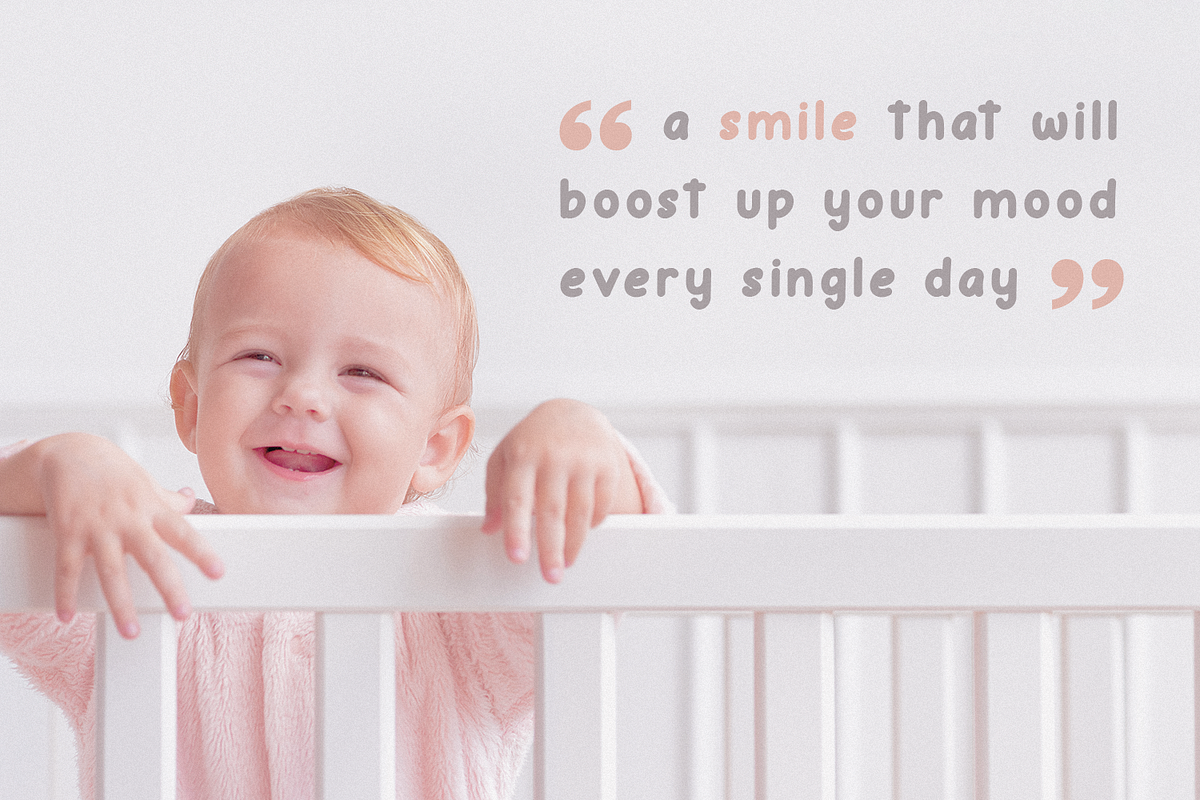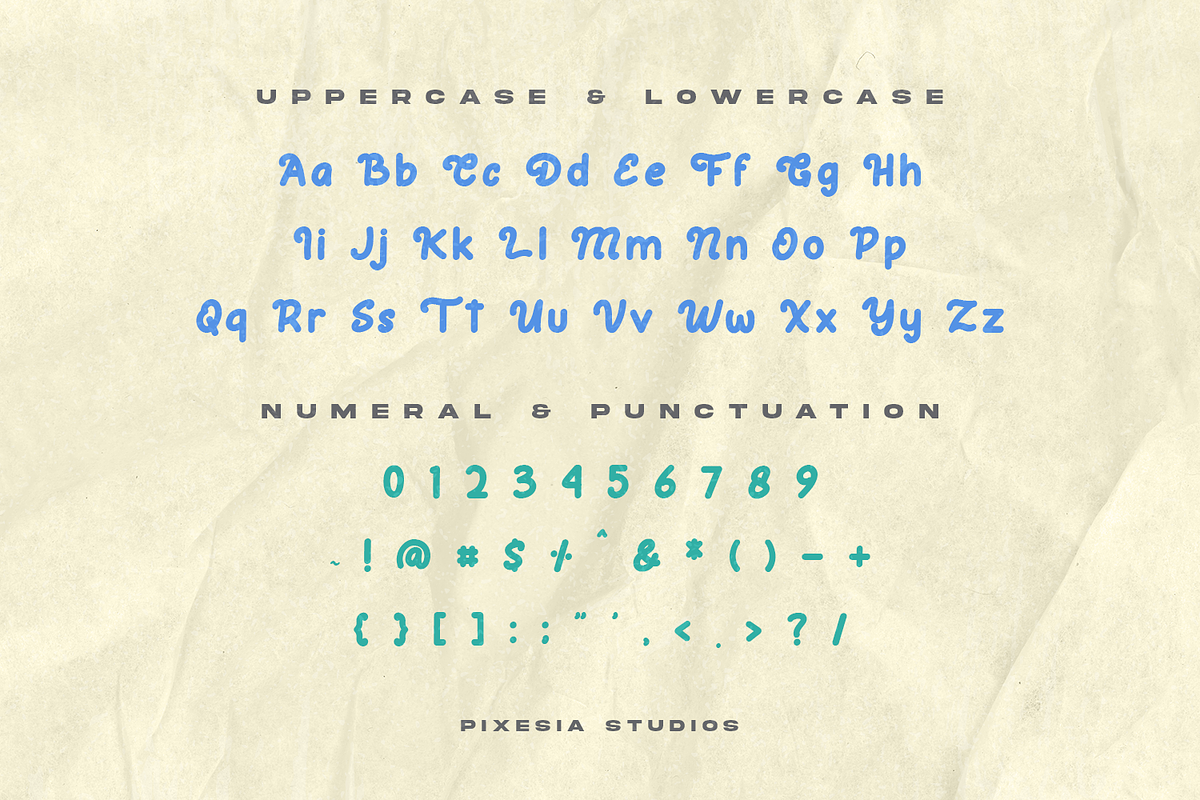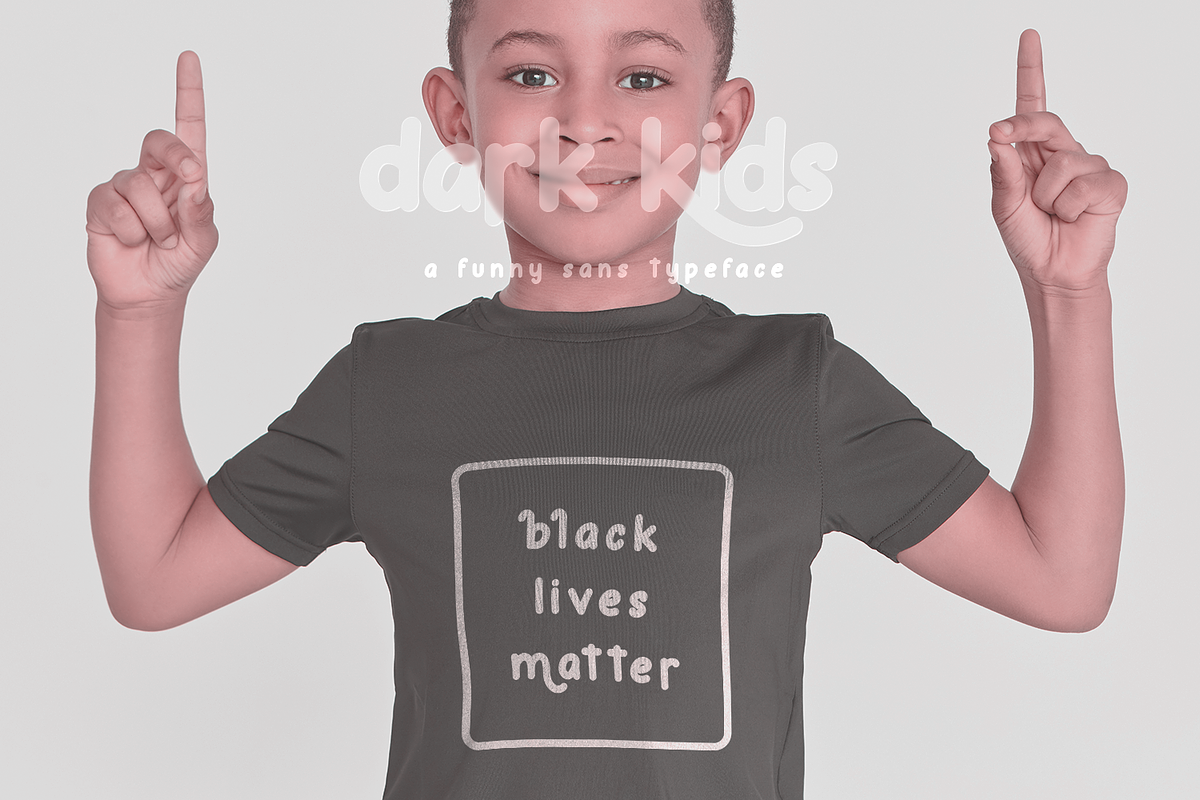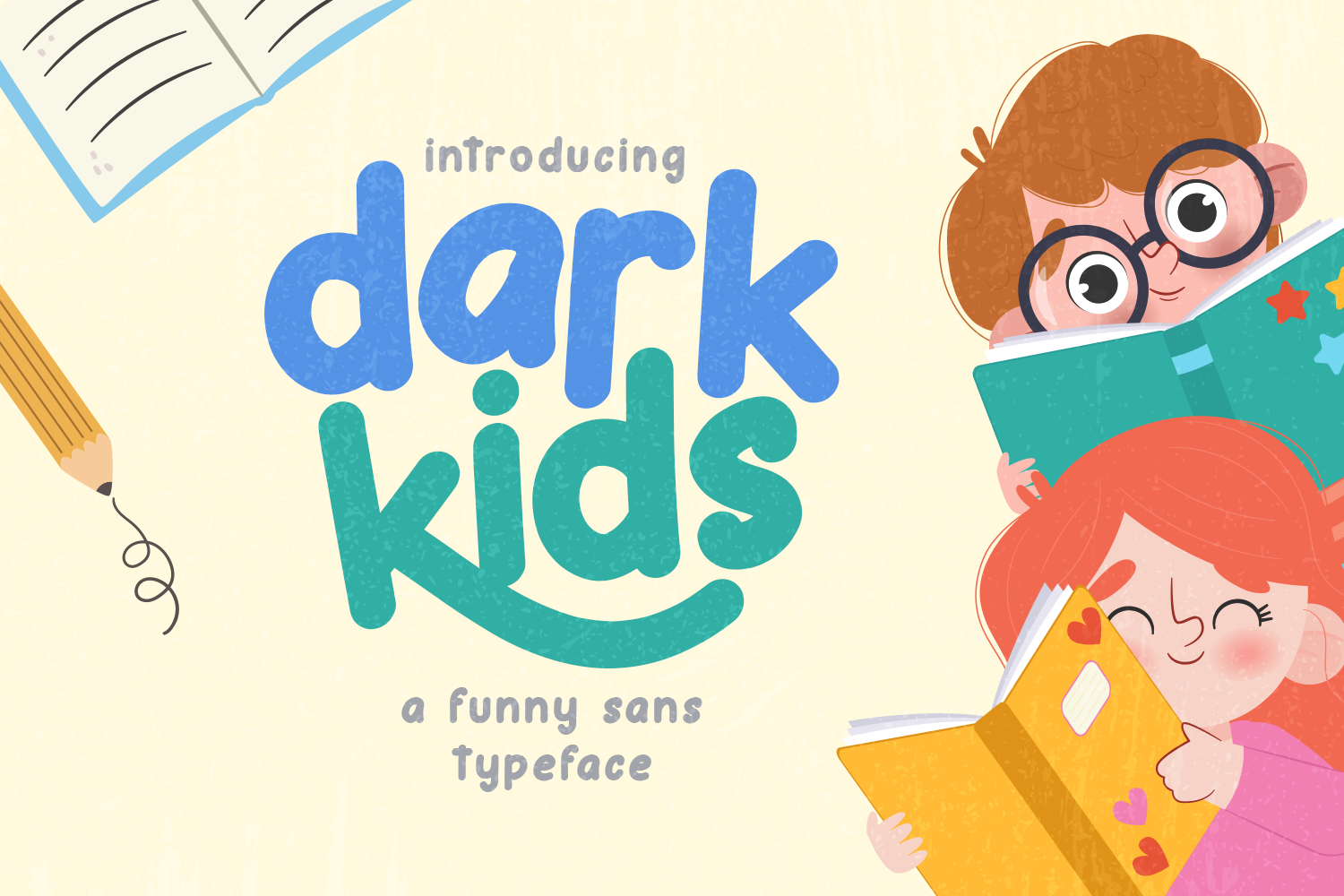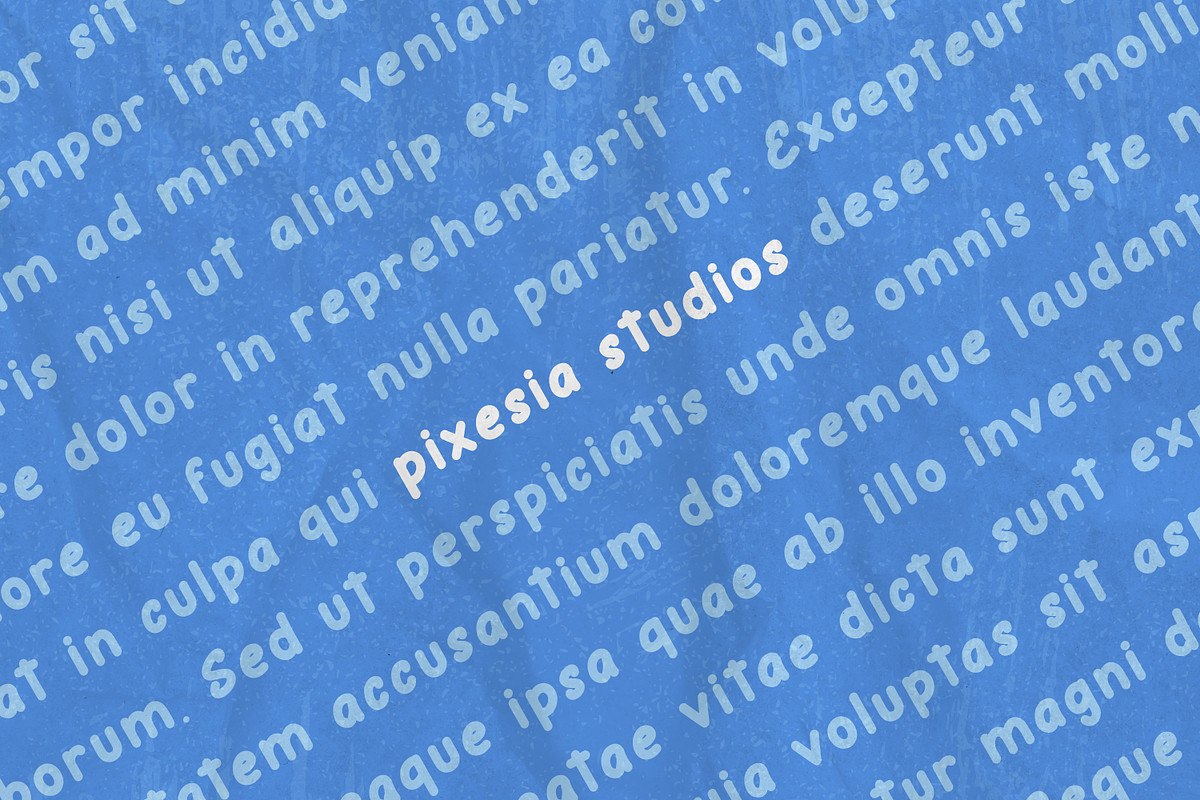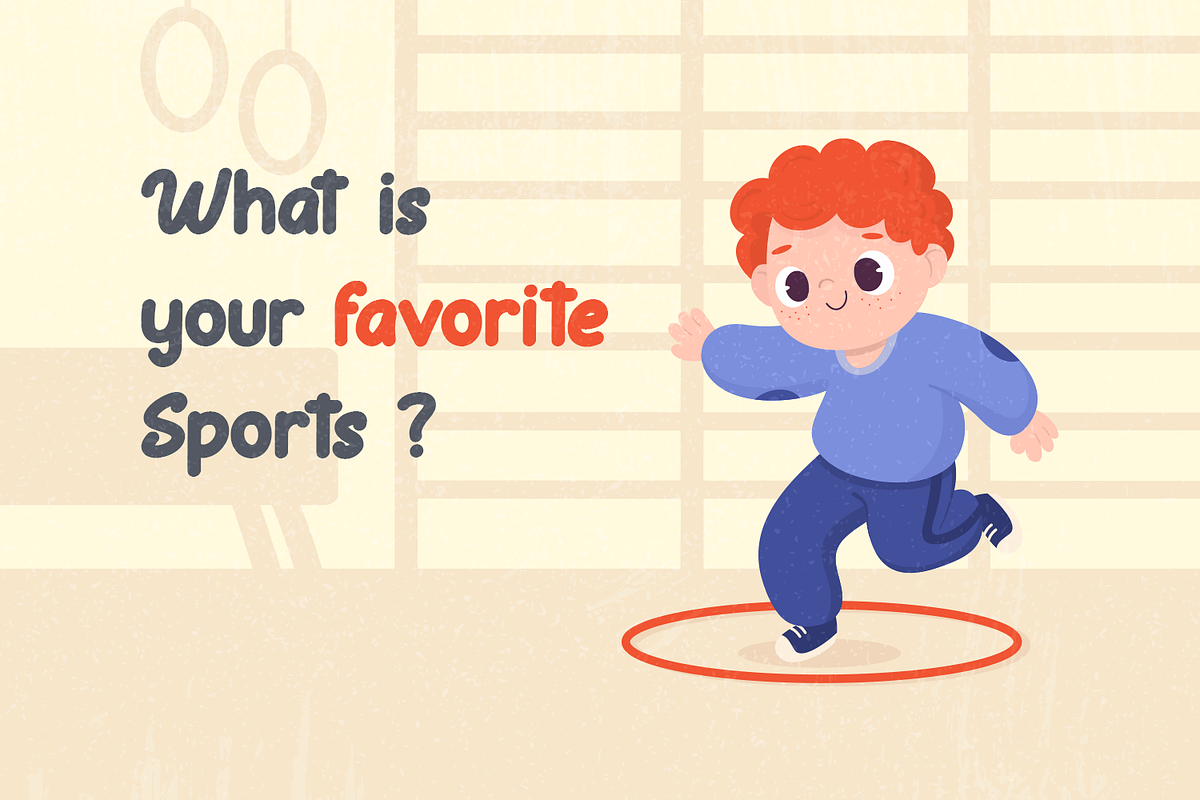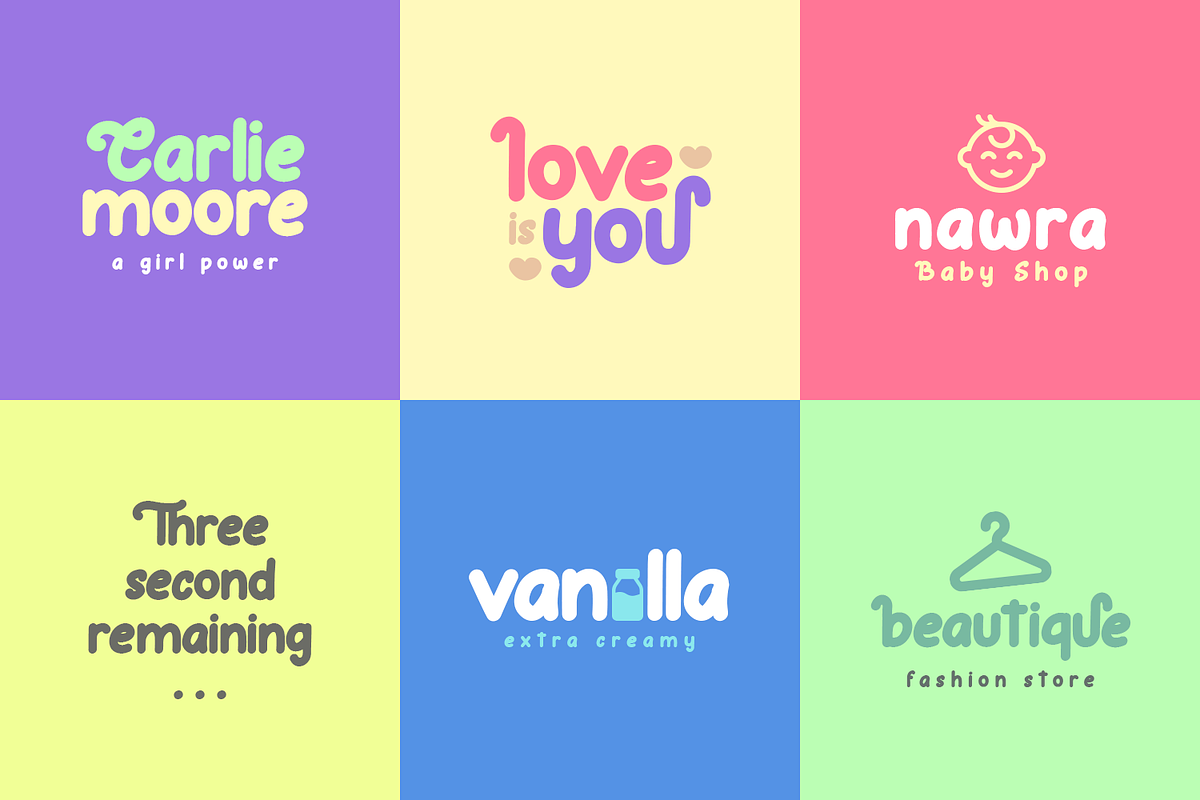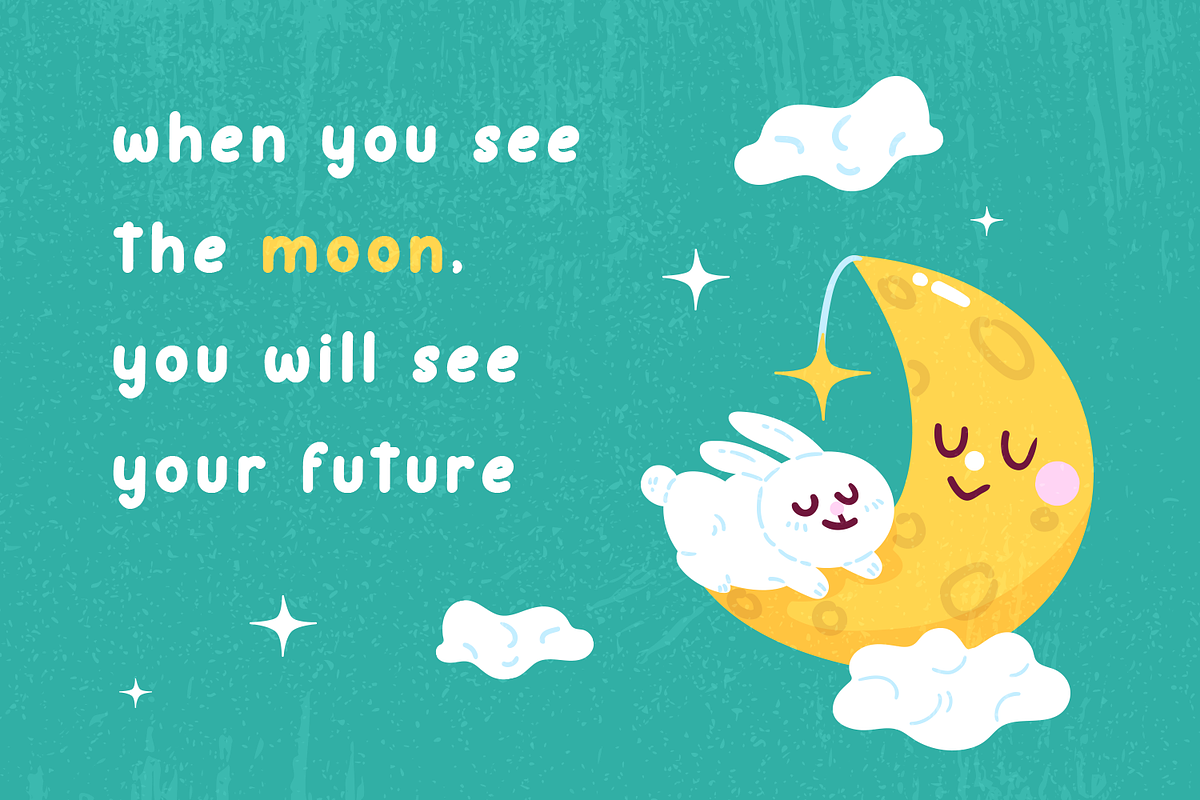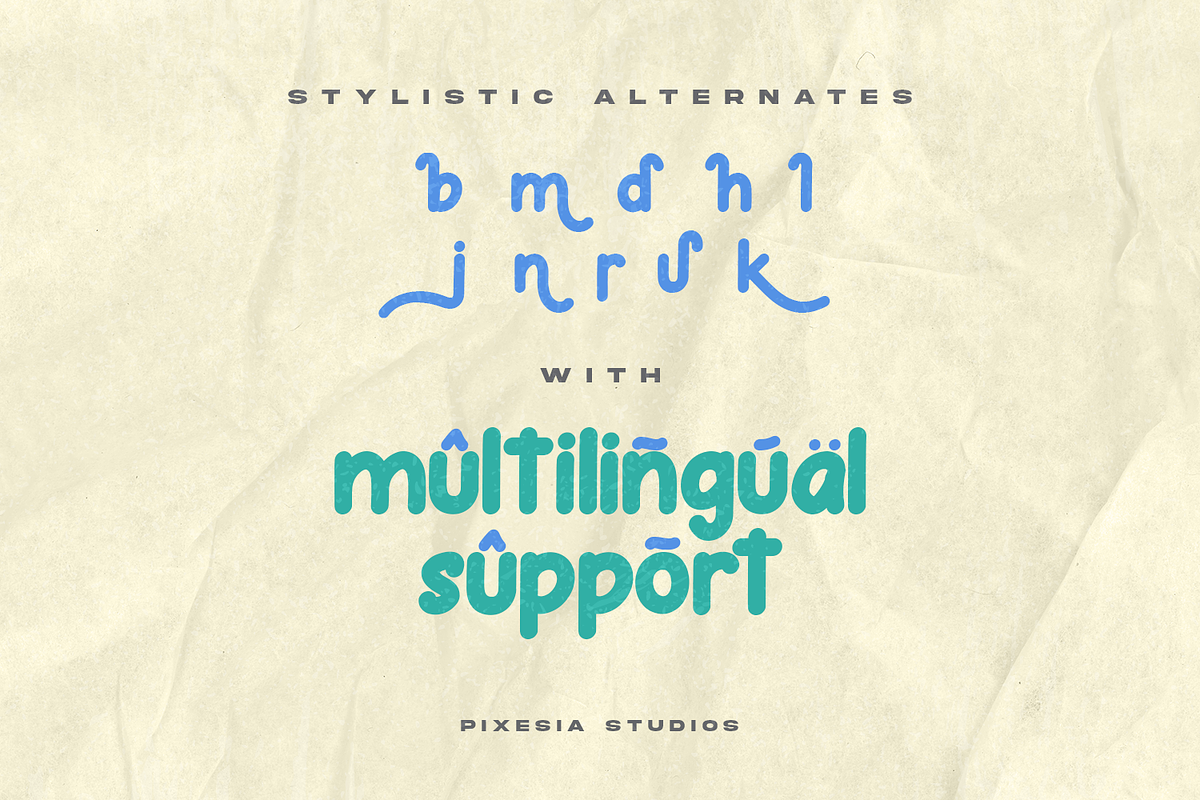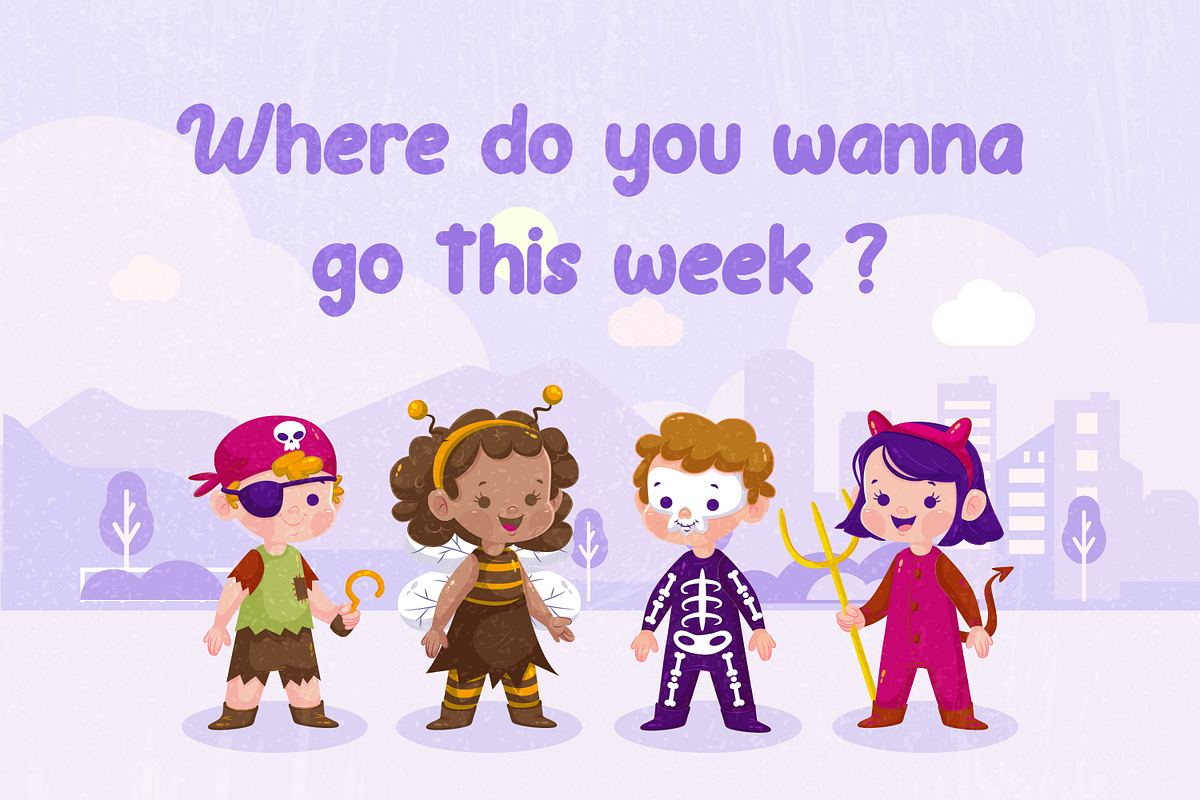
Dark Kids - A Funny & Playful Font
Introducing Dark Kids - A Funny & Playful Sans Font
Dark kids is a funny sans typeface. This type is formed with rounded-letter to make it more playful and cute vibes. This type is also designed to be bold yet it still spreads the bubbly vibes which is suitable for kids. This font is meant to attract kids so it is better used for any non-formal kids product such as children-books, baby products, and any writing which related to kids.